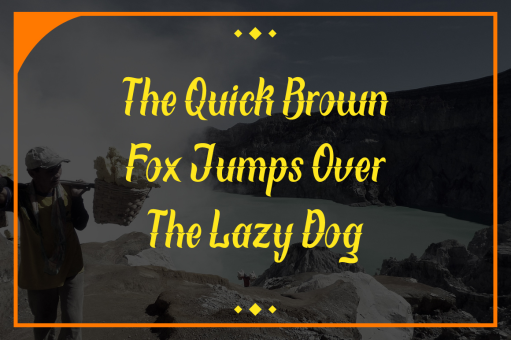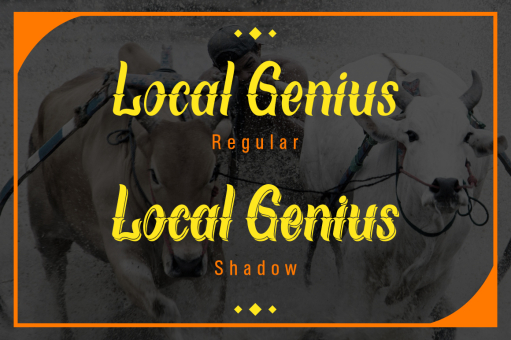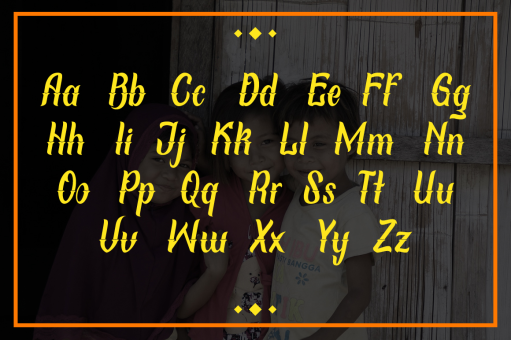
Local Genius
The traditional taste typeface. Inspired from my friend's college task about his cultural studies in my country. The shapes of this typeface was a little combined between brush style and plant. Already tested in Adobe Illustrator (Recommended), Adobe Photoshop, Adobe Indesign, CorelDraw and etc. High recommended for your Display, sub-headline or body-text, especially about your cultural designs.
Designer: Arterfak Project
Publisher: Arterfak Project